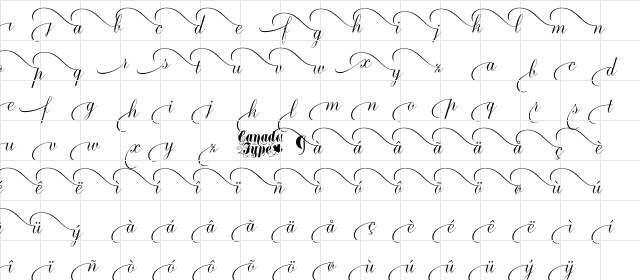
Ambassador Script Begs I Regular
| Foundry | Canada Type |
| Designer | Rebecca Alaccari |
Design Context for Ambassador Script Begs I Typeface
Ambassador Script Begs I flows with the natural rhythm of handwritten lettering, making it ideal for designs that call for warmth and personal expression.